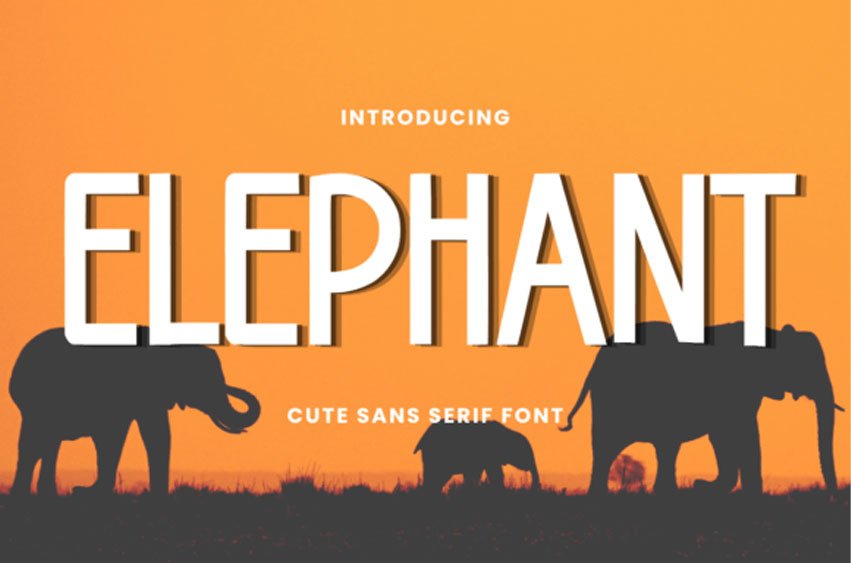
Elephant Font is a striking, extra-tall sans serif display font with a powerfully commanding presence.
Its exaggerated vertical proportions and crisp lines give it a contemporary, architectural feel, while the slight variations in stroke width add a subtle, humanistic touch that prevents it from feeling too rigid. This font is bold, confident, and instantly memorable, making it the perfect choice for high-impact titles where you need maximum visual reach.
Use Elephant to dominate posters, create compelling movie titles, design athletic and apparel logos, or establish a strong brand identity for food and beverage packaging.
It features a complete set of glyphs for upper and lower case, numbers, and extensive punctuation, ready to elevate any design needing a monumental and graphic aesthetic.